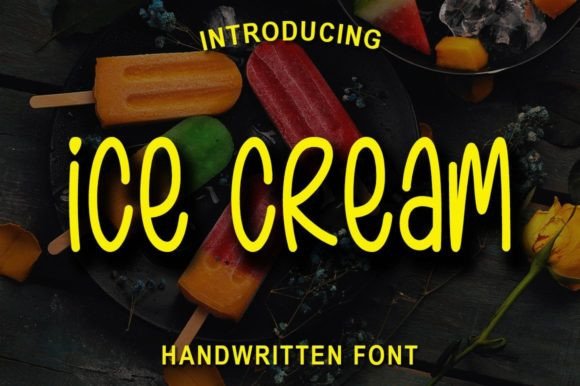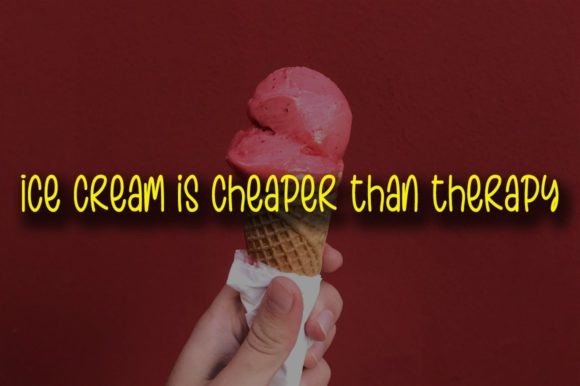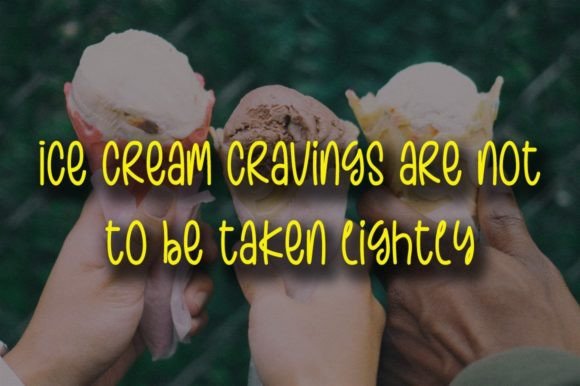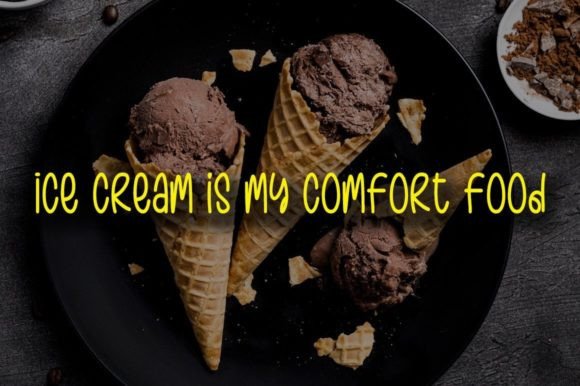
Ice Cream Font
About Ice Cream Font
“Ice Cream” is a fresh handwritten font designed for a range of creative purposes, making it suitable for writing, designing, sending invitations or letters, and more. This font stands out with its hand-touched and scratched elements, enhancing the overall character of your designs with a unique and personalized touch.
The handwritten quality of Ice Cream adds a genuine and human aspect to your projects. Whether you’re crafting personal letters, designing invitations for special occasions, or creating artistic expressions, the font’s hand-touched features contribute to a warm and inviting aesthetic.
The inclusion of scratches in the design brings an element of texture and authenticity to Ice Cream. These subtle imperfections can enhance the visual interest of your designs, giving them a handcrafted and artisanal feel. It’s a font that goes beyond mere letters, offering a creative and expressive tool for your projects.
The versatility of Ice Cream makes it suitable for a variety of creative needs. Whether you’re working on casual writing, expressive designs, or anything in between, the font’s handwritten charm allows it to adapt to different contexts while maintaining a cohesive and inviting appearance.
In summary, Ice Cream is not just a font; it’s a creative companion for your writing and design endeavors. With its handwritten and scratched elements, it adds a touch of authenticity and warmth to your projects. Let Ice Cream be the delightful choice that enhances your creative expressions, making them more personal and visually engaging.